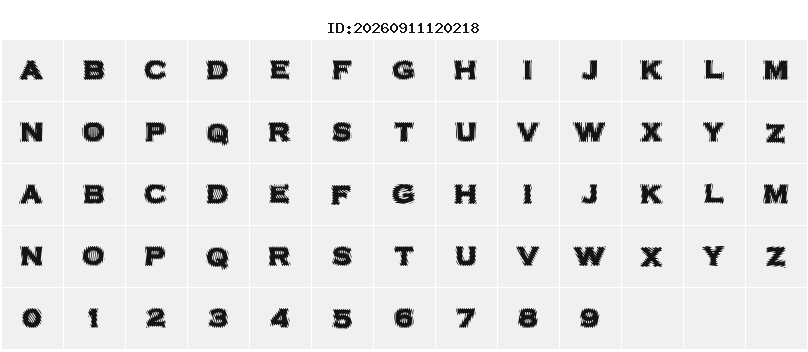
VTCBadPlating Preview
• Font Name: VTCBadPlating
• Designer: WolfBainX
About VTCBadPlating.ttf
VTCBadPlating.ttf is a modern, elegant sans-serif font designed for ultimate readability and visual harmony. Perfect for branding, headlines, web design, and print materials.